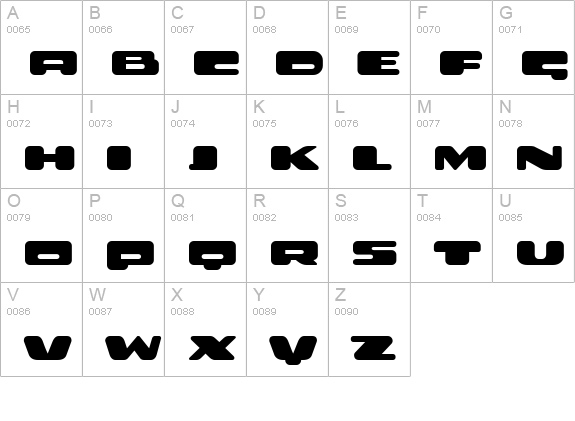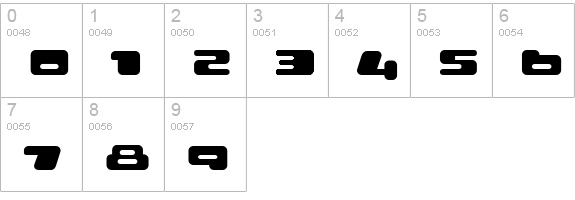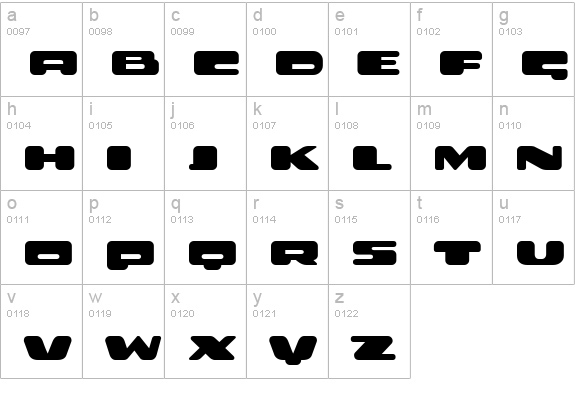
PILOT Heavy is a heavy, high-impact variant in the PILOT typeface family \xE2\x80\x94 well suited to high-impact headlines, posters, and display advertising.
Introducing PILOT Heavy font, a stunning typeface that exudes power and strength. With its bold and commanding presence, this font is a true game-changer in the design world. PILOT Heavy is perfect for projects that require a strong and impactful message, making it ideal for headlines, logos, posters, and branding materials. This typeface boasts a unique balance between elegance and masculinity, making it versatile and suitable for a wide range of design styles and themes. Its thick lines and sharp edges give it a modern and contemporary feel, while its subtle curves add a touch of sophistication. The bold letterforms of PILOT Heavy demand attention and leave a lasting impression on any viewer. What sets PILOT Heavy apart is not just its exceptional design, but also its accessibility. This font is freely available to download at FontsMarket.com, ensuring that designers of all levels have the opportunity to elevate their projects with its remarkable presence. Whether you are an experienced graphic designer or just starting out, PILOT Heavy is the perfect companion to help you make a bold statement with your work. Don't miss out on the opportunity to add this exceptional typeface to your font collection. Download PILOT Heavy for free at FontsMarket.com and unleash its power in your designs today.